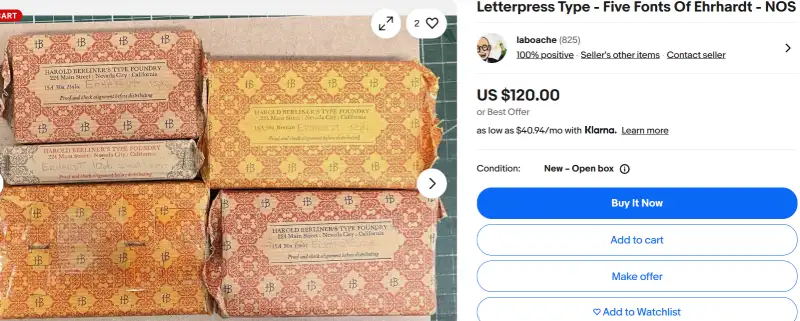
5 Fonts of Ehrhardt - California, USA
Letterpress Type - Five Fonts Of Ehrhardt - NOS*
Five fonts of unprinted Ehrhardt type. 2 fonts of 12 point Ehrhardt Roman, 1 font of 12 point Ehrhardt Semi - Bold, 1 font of 10 point Ehrhardt Italic, and 1 font of 10 point Ehrhardt Small Caps. A rare find of this classical English Monotype face.